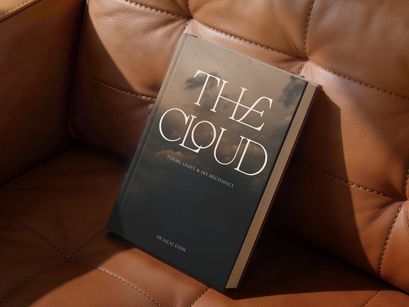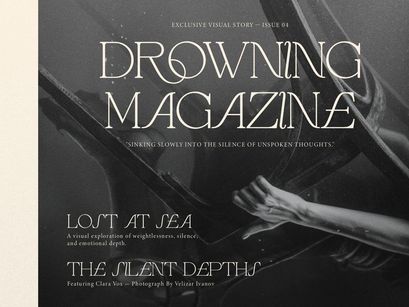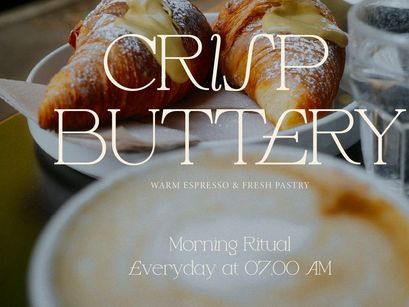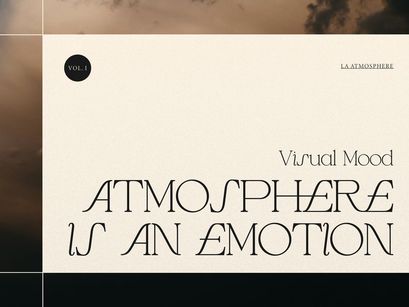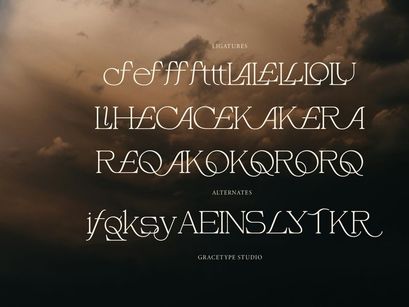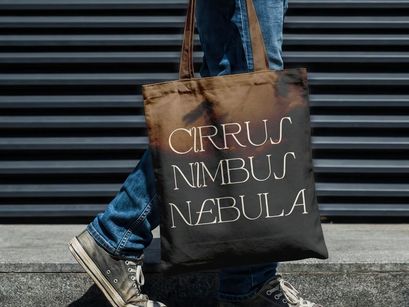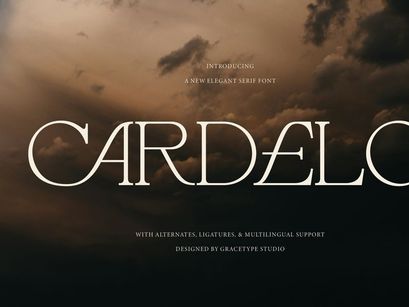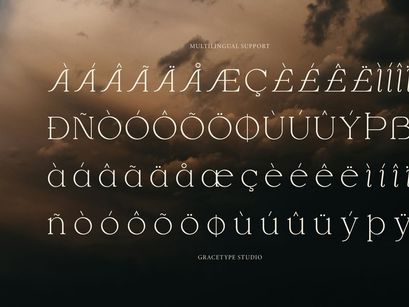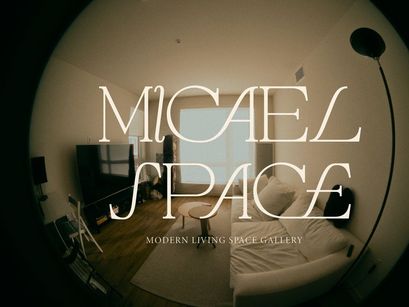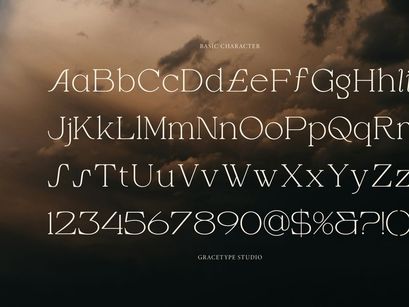
Cardelo | Elegant Serif Font
Cardelo | Elegant Serif Font, from Gracetypestudio, suitable for any projects such as: logos, branding projects, homeware designs, product packaging, mugs, quotes, posters, shopping bags, t-shirts, book covers, name card, invitation cards, greeting cards, label, photography, watermark, special events, and all your other lovely projects that need a Serif Font taste.